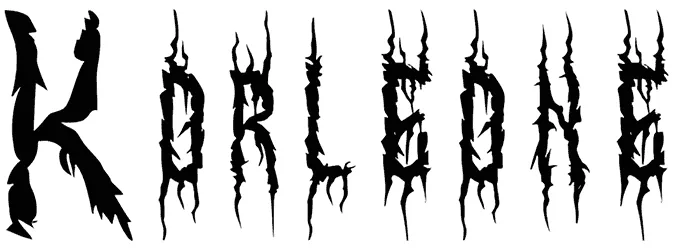
Korleone Font
Like the flames of fire, Korleone brings a sense of tenderness, fierceness, fear, and dread to your artwork and makes them look shining alongside other counterparts. This would take your stickers, blog posts, logos, and social media posts to a higher level of quality. Aside from the lack of numbers, it would be a very tempting choice for you.